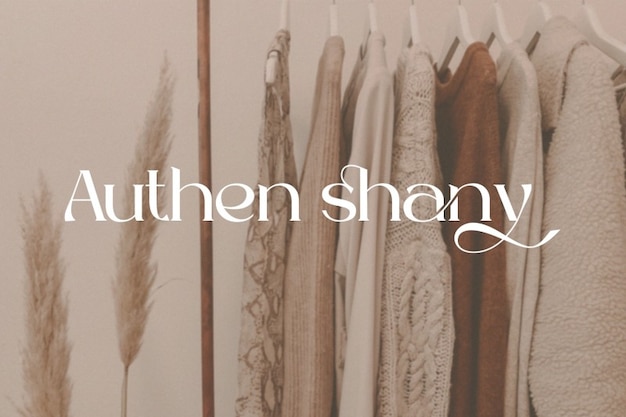
Auten Shany Font
Auten Shany is a font that beautifully blends modern style with an elegant and cozy charm. Its sleek design exudes a sense of sophistication and style, making it perfect for a wide range of creative projects. Whether you're working on branding, invitations, or any design endeavor, Auten Shany effortlessly adds a touch of contemporary elegance and comfort to your text. This font captures the essence of modern design while offering a sense of warmth and coziness, making it an ideal choice for those who appreciate the power of stylish and inviting typography.